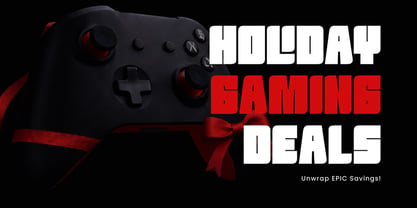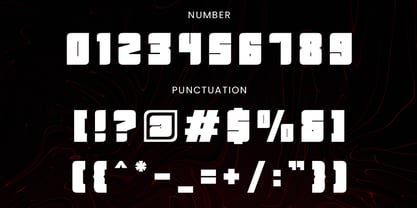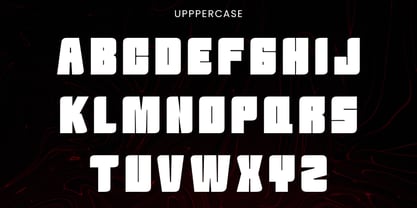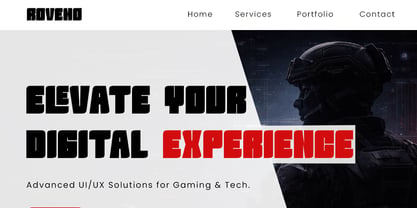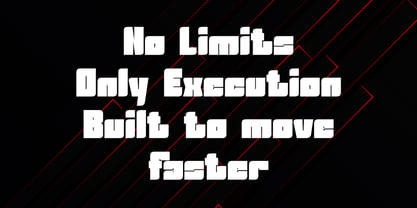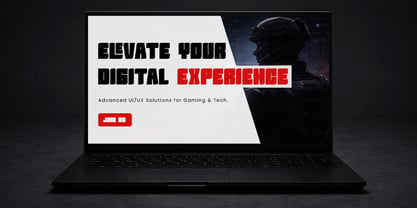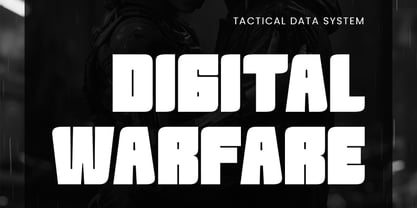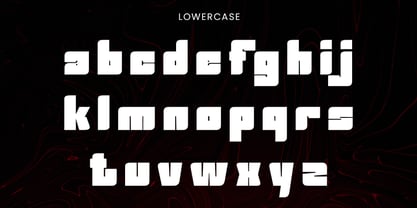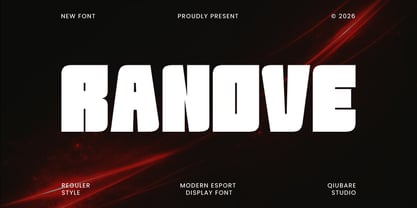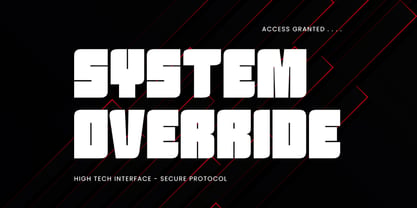
Ranove
Die Schriftfamilie Ranove wurde von Michael Everson entworfen und von Qiubare Studio veröffentlicht. Ranove enthält 1 Stile. Mehr über diese Familie
Ranove is a bold and modern esport display font crafted for high-impact visuals. Featuring strong geometric shapes and a futuristic character, this font is ideal for gaming, technology, and digital-themed projects. Ranove exudes a powerful and confident aesthetic, making it perfect for headlines, posters, branding, logos, and esports designs. Its unique structure ensures excellent readability while maintaining a distinctive and aggressive style. Perfect for: - Esports & gaming branding - Tech and futuristic designs - Posters & headlines - YouTube thumbnails - UI/UX and digital interfaces - Social media graphics Features: - Uppercase & Lowercase - Numbers & Punctuation - Strong stylistic character - Clean and modern design Ranove is designed to elevate your projects with its bold and futuristic presence, ensuring your designs stand out in any digital landscape.